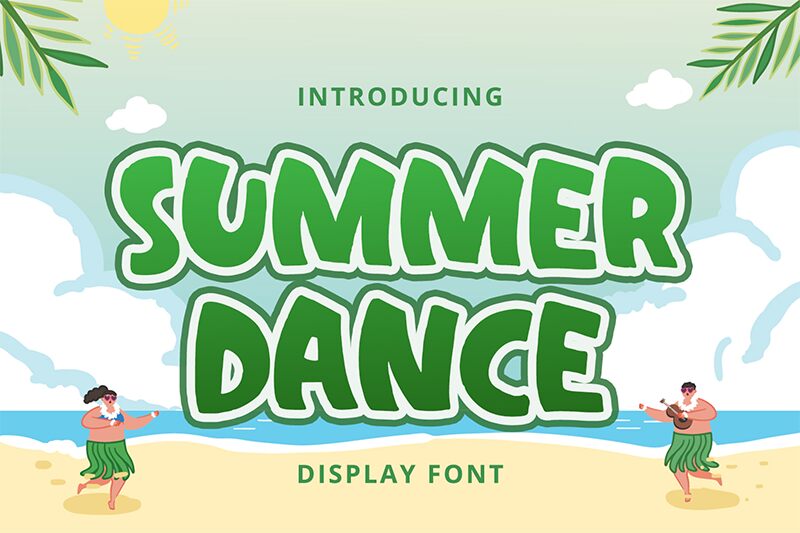
Summer Dance
Summer Dance, a bold display font by Alpaprana Studio, brings a playful and animated touch to any project.
With its cartoon-inspired style, this font is perfect for children's book covers, greeting cards, party invitations, and posters. Its bold weight adds emphasis to headlines and titles, while the display typeface gives a unique character to logos and branding materials. Let
Summer Dance bring your designs to life with its whimsical charm and vibrant personality.